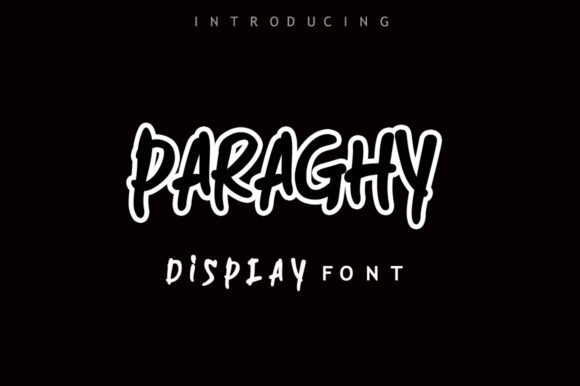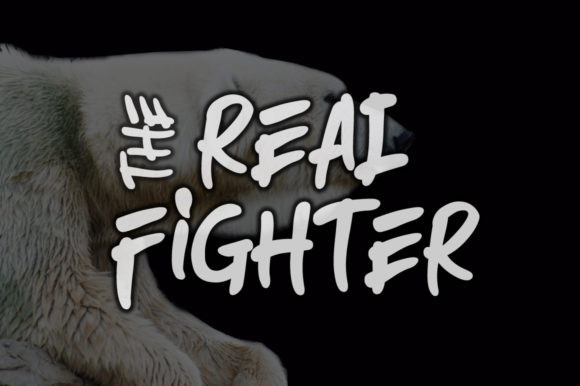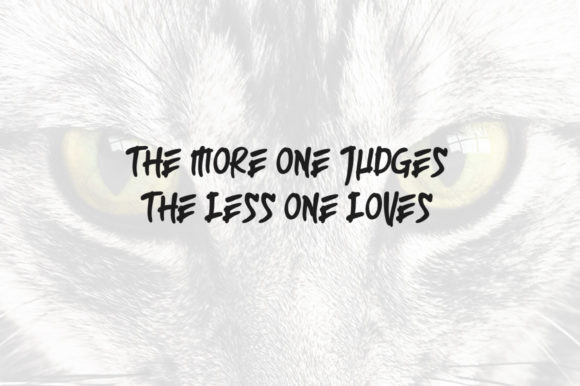
Paraghy Font
Paraghy is a playful display font that has a friendly feel. Clean and a little bit quirky, this font is the perfect fit for all of your logos, branding, social media, and crafty DIY projects.